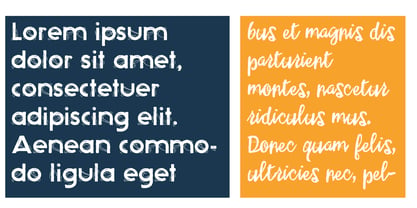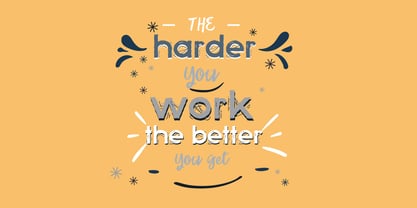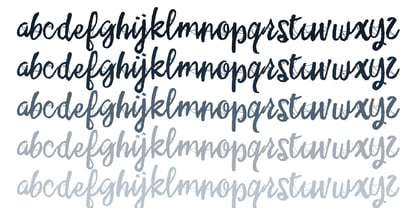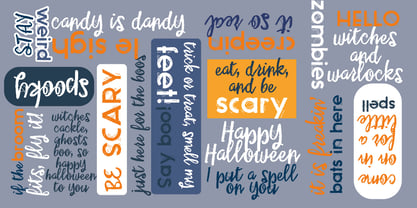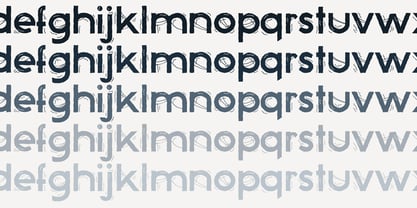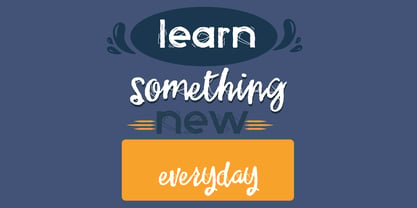
ZP Spookyville
by Illustration Ink
The ZP Spookyville Font Family was designed by Illustration Ink and published by Illustration Ink. ZP Spookyville contains 6 styles and family package options. More about this family
This hand-crafted font duo is a fun Halloween font with a spooky sans serif and coordinated script. Hand-crafted fonts can be either formal or informal, and they can be used for a variety of purposes. Some of the characteristics of handwritten fonts include: The letters are not perfectly uniform in size or shape. There may be slight variations in the spacing between letters and words. The font may have a "wiggly" or "squiggly" appearance. The font may be difficult to read at small sizes. Handwritten fonts can be a great way to add a casual touch to your designs. They can also be used to create a sense of nostalgia or whimsy. However, it is important to choose a handwritten font that is appropriate for the project you are working on. A formal handwritten font may not be appropriate for a casual invitation, while an informal handwritten font may not be appropriate for a corporate document.
Designers: Illustration Ink
Foundry: Illustration Ink